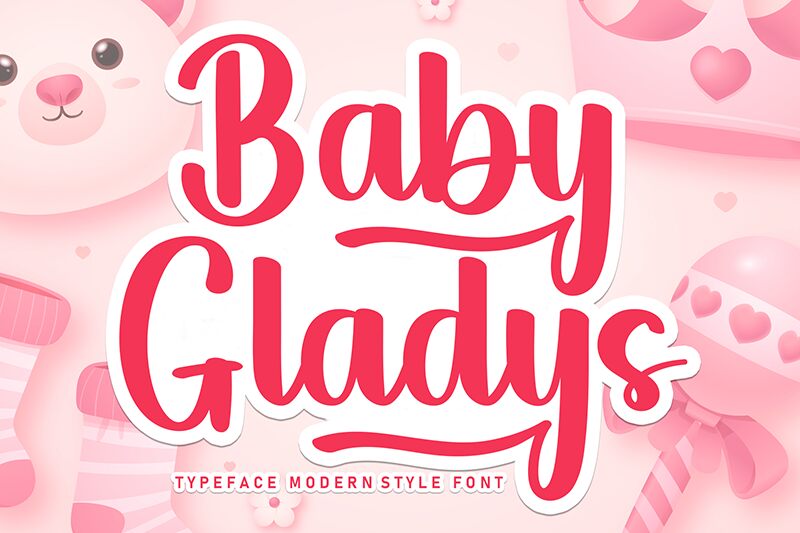
Baby Gladys
Baby Gladys font by Scratchones is a casual flowing handwritten font with matching fluid yet fully connected letterforms. Letters are diagonally aligned yet still readable, consistent and bold yet still pleasant and friendly. All elements combine to form a modern, expressive, lovely typeface that works even more beautifully with its smooth naturally drawn swashes.
The free handwritten font could by great for branding, logos, signages, posters, flyers…